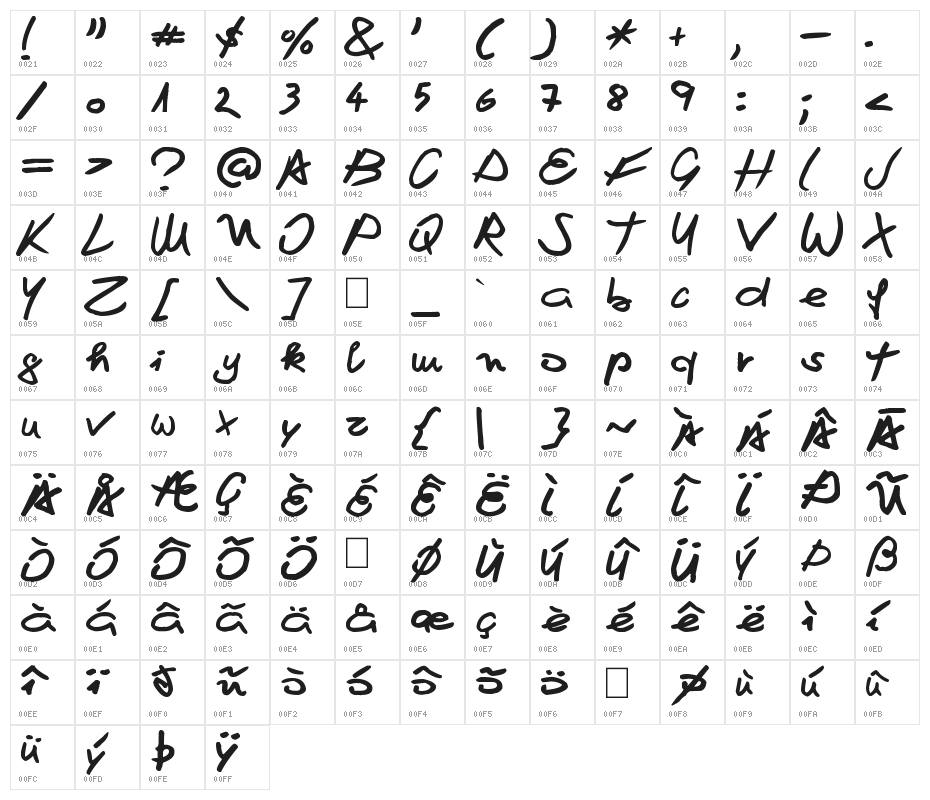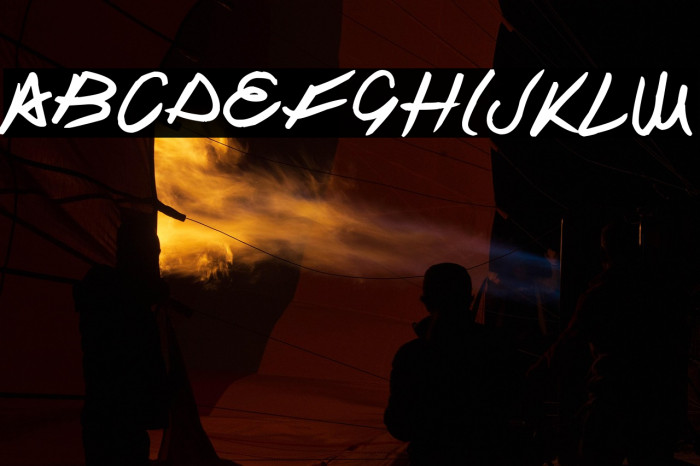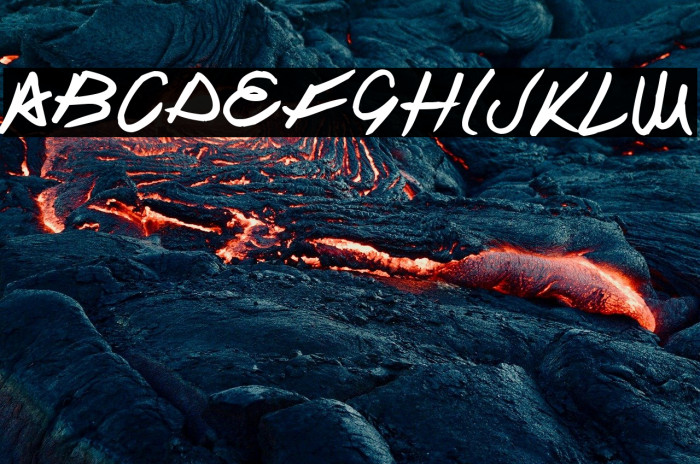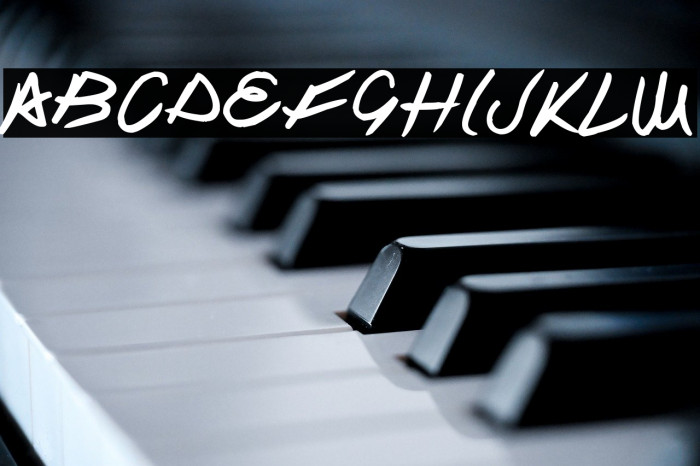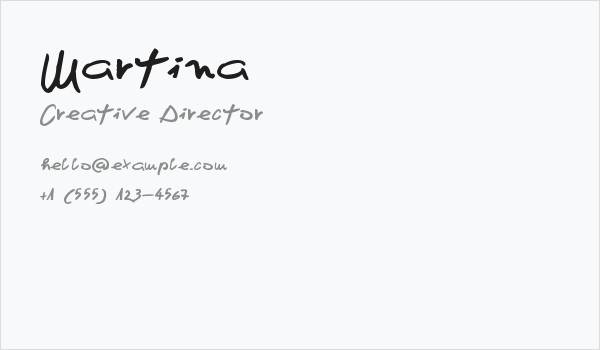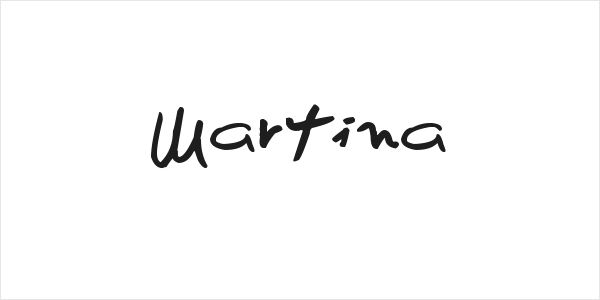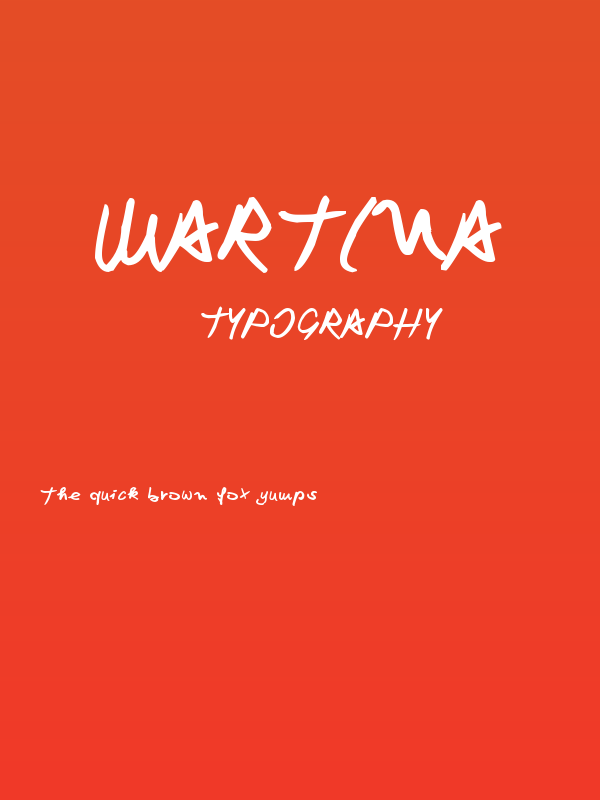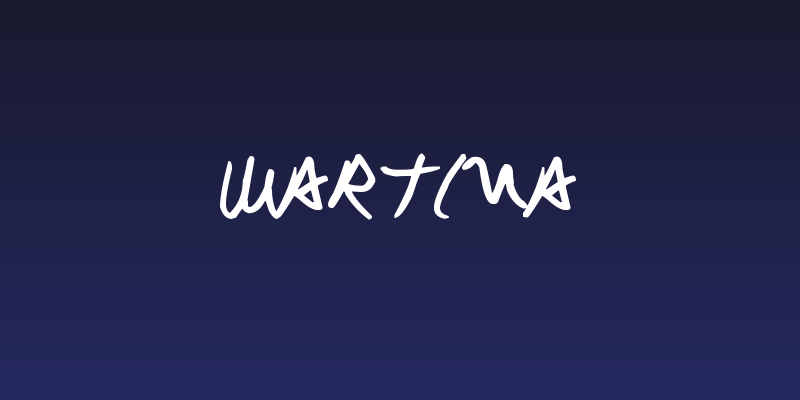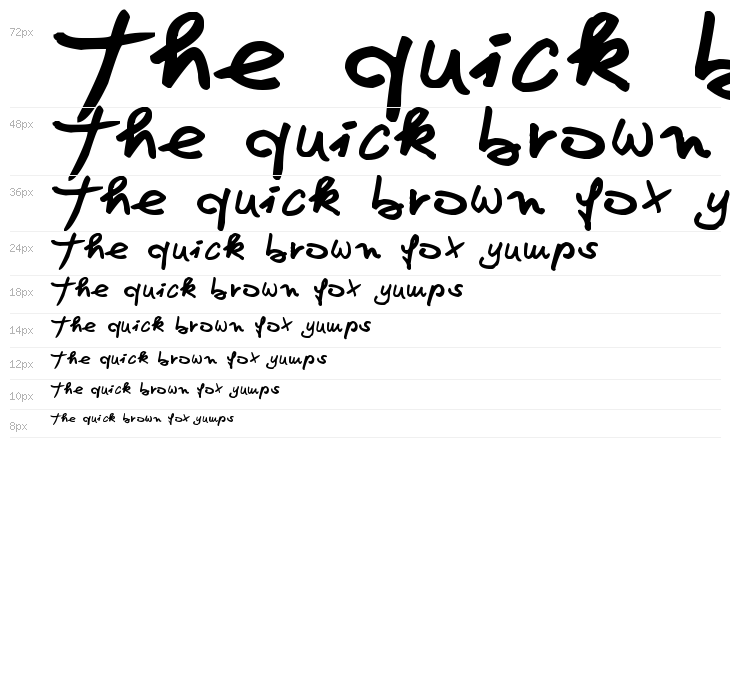
Martina Font
Martina Description
This font exudes a lively and dynamic handwritten style, characterized by its fluid and slightly irregular strokes that mimic natural handwriting. The uppercase letters are bold and expressive, while the lowercase letters maintain a consistent flow, enhancing readability. Numbers and special characters are crafted with the same energetic flair, making them stand out. The overall appearance is casual yet artistic, suitable for projects that require a personal touch. The font's playful nature makes it ideal for creative designs, invitations, or any project aiming to convey a sense of spontaneity and warmth.
| Overall Style | Casual, Artistic |
| Proposed Projects | Ideal for invitations, greeting cards, personal branding, and creative projects. |